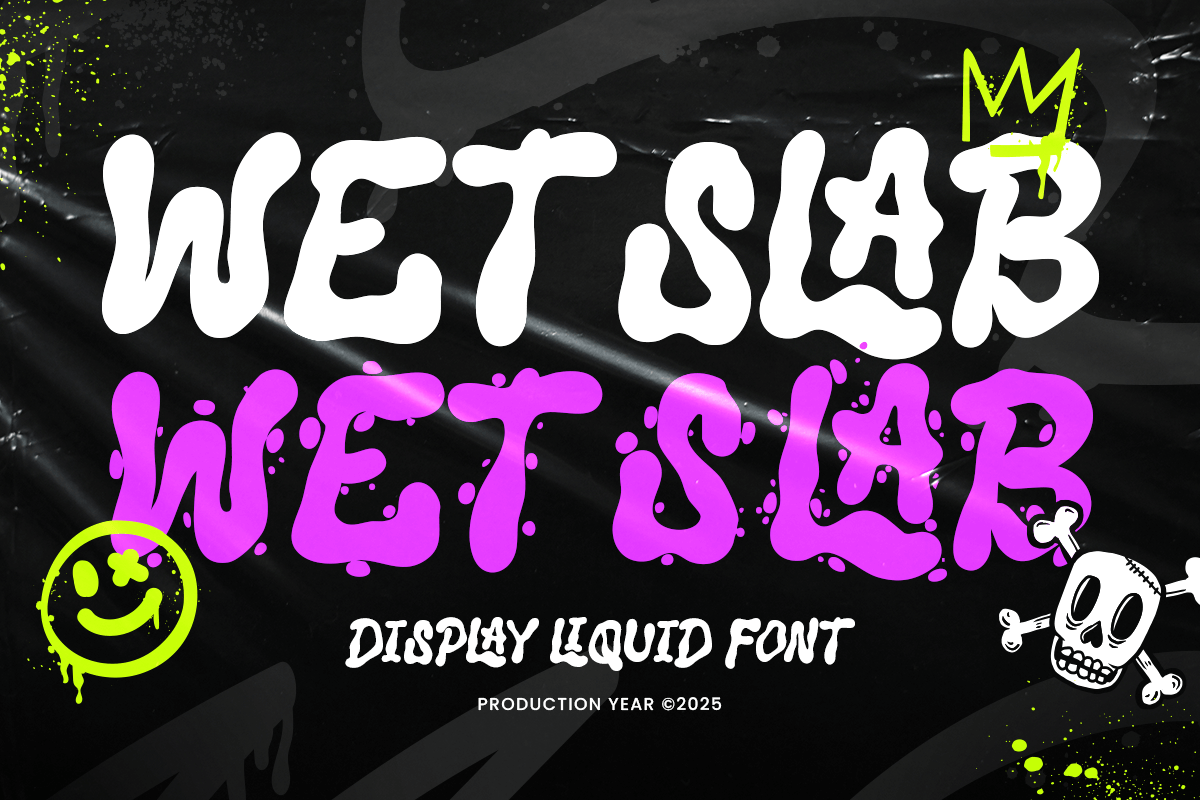
Wet Slab
-Funky Liquid Water FontWet Slab - Funky Liquid Water Font
WET SLAB is a liquid-inspired water display font that brings motion, texture, and creativity to every project. Designed for designers who love expressive typography, this font blends the fluid aesthetics of liquid drops with bold display letterforms.
Perfect for branding, packaging, posters, event graphics, and advertising campaigns, WET SLAB stands out with its natural flow and organic style. Whether you’re creating a beach-themed poster, skincare packaging, or beverage branding, this font adds a splash of realism and movement to your visual identity.
Its smooth curves and dynamic edges create an eye-catching effect that captures attention instantly — ideal for both print and digital designs. Pair it with minimal sans-serifs for modern branding or use it solo for striking headline compositions.
WET SLAB – Liquid Water Font Features
Fluid, textured, and handcrafted liquid-style letterforms
Available with Regular and Display Style with splash version
Perfect for creative branding, posters, packaging, and digital artworks
Bold display typeface suitable for large titles and visual storytelling
Works great with both dark and light backgrounds for maximum contrast
Uppercase, lowercase, numerals, and punctuation included
OpenType features for extra versatility
Add movement and creativity to your projects with WET SLAB – the ultimate liquid water font for modern branding, packaging, and poster designs. Make your visuals flow with elegance and bold personality. 💧✨